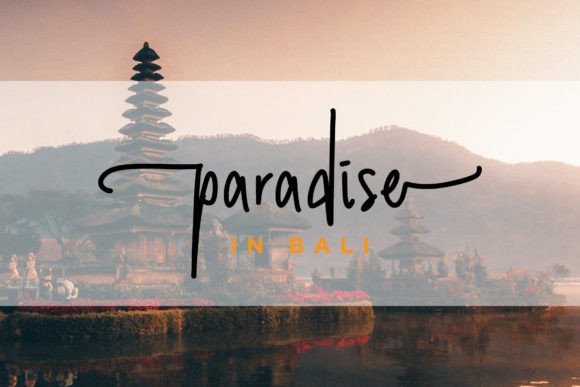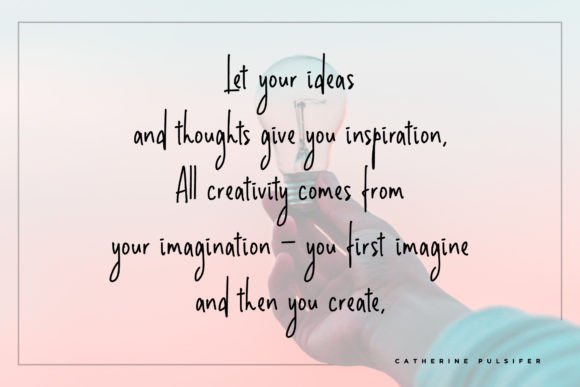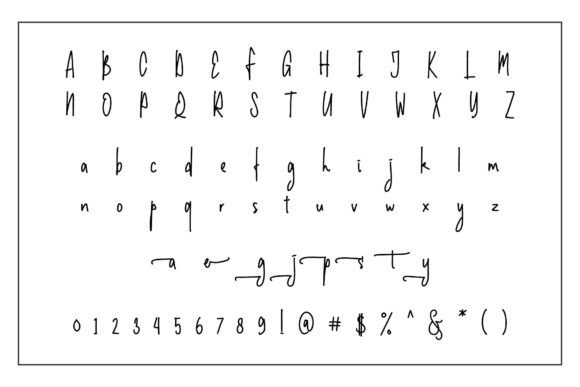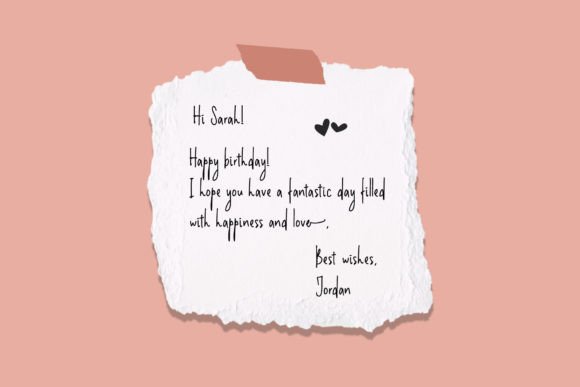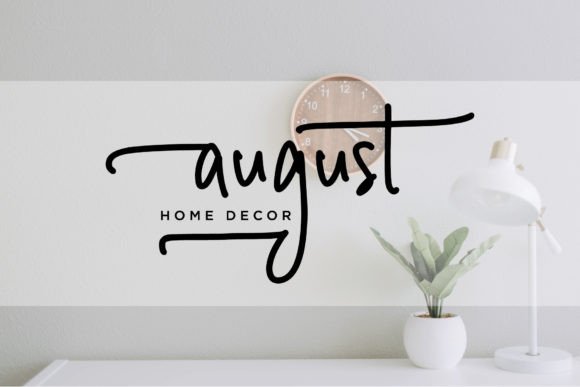
The Quest for the Perfect Font: Discovering Better Smile
I’ll never forget the time I was working on a project for a client who wanted a fun, laid-back vibe for their branding. I had spent hours scouring the internet for the perfect font, but nothing seemed quite right. That was until I stumbled upon Better Smile, a simple, quirky, and adaptable handwritten font that instantly clicked with me. In this article, I’ll share my experience with Better Smile, its features, and how to make the most of it in your designs.
An Honest Review of Better Smile
• ✨ Simple and quirky design that adds a touch of personality to any project
• ✅ Adaptable to various design styles, from casual to playful
• 💬 Informal style and casual vibe that makes it perfect for creative projects
• 🎨 Highly legible, even at smaller font sizes
While Better Smile is an excellent font, it’s not without its quirks. For instance:
• 🤔 Some characters, like the uppercase letters, can appear a bit cramped when used at very small sizes
• ⚠️ Limited support for non-English characters, so it’s best used for English-language projects
The Story Behind Better Smile
Better Smile was designed with the intention of creating a font that’s both fun and functional. Its creator wanted to craft a font that would add a touch of personality to any project, without being too over-the-top or distracting. The result is a font that’s perfect for creative projects, from branding and advertising to crafting and DIY tutorials.
Q: What is the best use for Better Smile?
A: Better Smile is perfect for creative projects that require a relaxed, casual touch, such as branding, advertising, and crafting.
Q: Is Better Smile suitable for body text?
A: While Better Smile is highly legible, it’s best used for headings and titles rather than body text. Its informal style and casual vibe make it perfect for adding visual interest to your text, but it may not be the best choice for longer blocks of text.